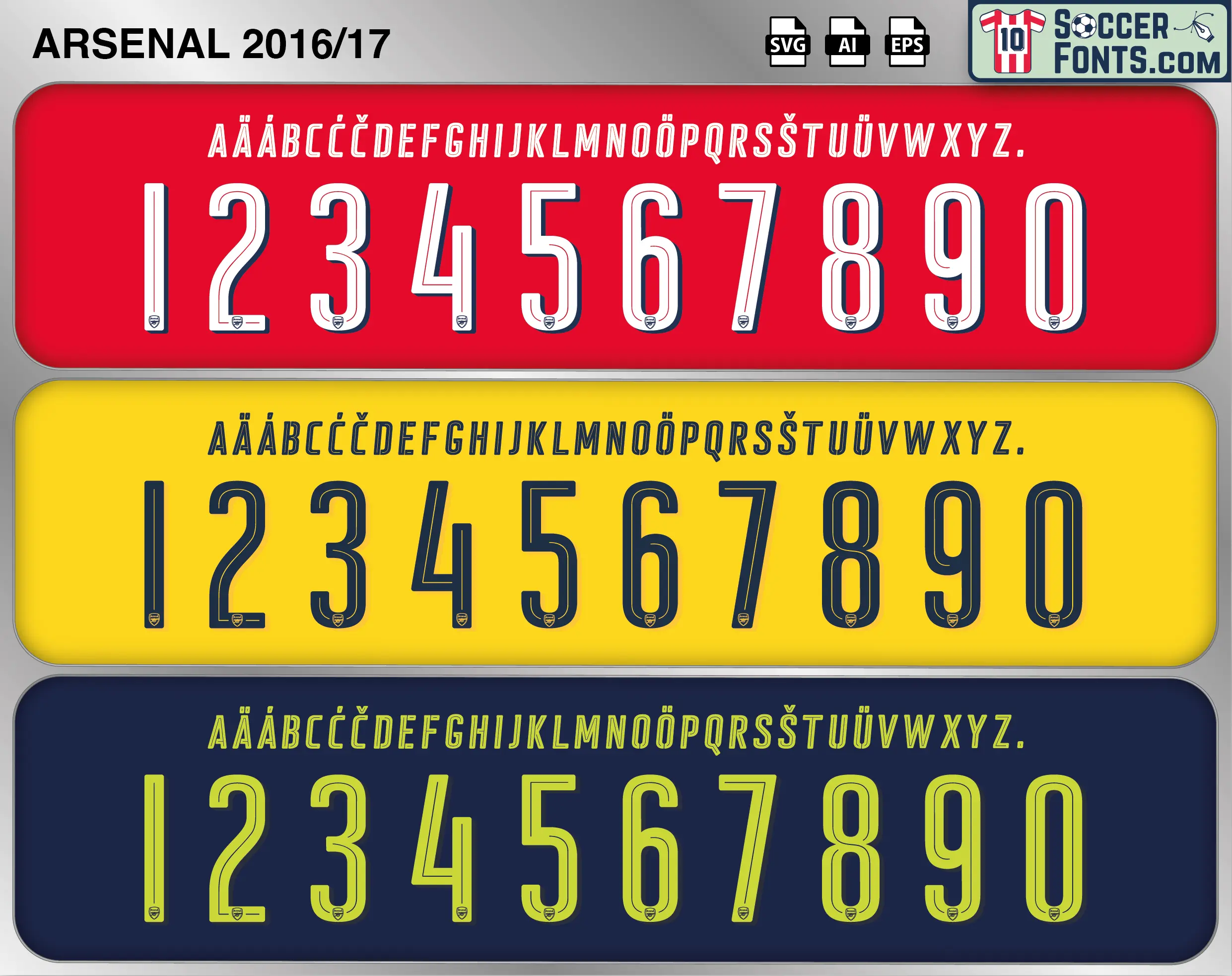
Arsenal 2016-17 Font
Download the Arsenal 2016-17 font, an editable soccer jersey lettering design in vector format inspired by the Arsenal kit style used during the 2016-17 football season. This football font artwork is prepared for football shirt recreations, custom jersey projects, football kit mockups and sports graphic design workflows.
The 2016-17 season was a dramatic chapter in Arsène Wenger’s long Arsenal era, with a squad featuring Alexis Sánchez, Mesut Özil, Olivier Giroud, Aaron Ramsey, Laurent Koscielny, Theo Walcott and Héctor Bellerín. Sánchez delivered one of his finest individual seasons in an Arsenal shirt, becoming the central figure in an attack that produced memorable moments across domestic and European competition. The Arsenal 2016-17 font belongs to this late-Wenger period, when the club remained packed with internationally recognizable players and continued competing at the highest level of English football. Arsenal finished fifth in the Premier League, narrowly missing Champions League qualification despite collecting 75 points.
The campaign also included another Champions League run, with Arsenal finishing above Paris Saint-Germain to win their group before meeting Bayern Munich in the round of 16. Domestically, however, the season ended with a major achievement at Wembley. Arsenal defeated Manchester City in the FA Cup semi-final before beating Premier League champions Chelsea 2-1 in the final through goals from Sánchez and Ramsey. The Arsenal 2016-17 font is therefore connected with a season that concluded with the club lifting a record 13th FA Cup at the time. For supporters and shirt collectors, the Arsenal 2016-17 font represents an era associated with Sánchez and Özil, Wenger’s final years in charge and another memorable Wembley triumph. It captures a distinctive point in Arsenal history immediately before the club entered the final season of Wenger’s remarkable managerial reign.